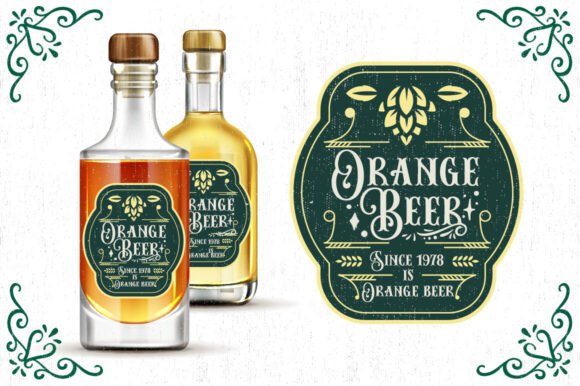
Batavia Vintage Font
Introducing Batavia Vintage, a decorative vintage font inspired by 19th century typography. Collected from various references such as vintage signs, logos, badges, and graphics. Batavia Vintage is an all-caps font, carefully crafted with an elegant yet classic feel, and some unique alternates.
Batavia Vintage is perfect for a variety of display purposes. You can use this font for posters, labels, logos, signs, t-shirts, book covers, decorations, merchandise, and more!